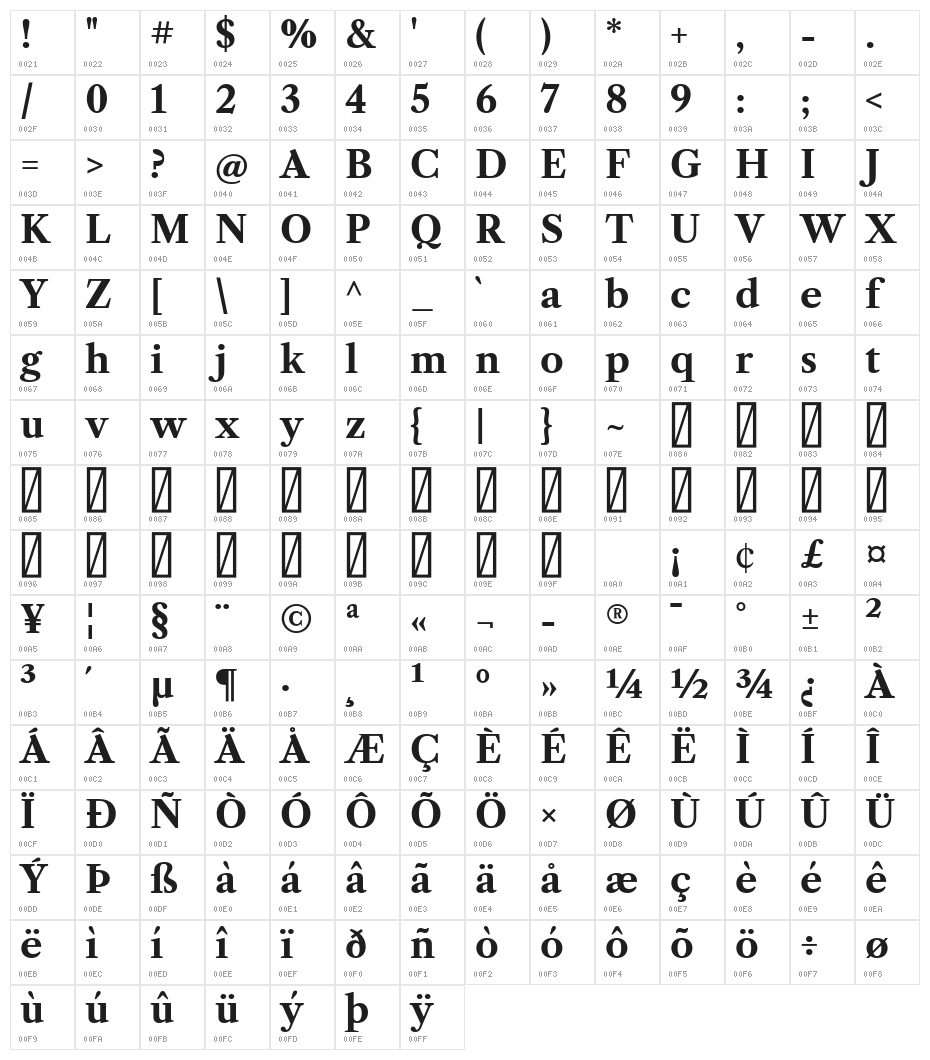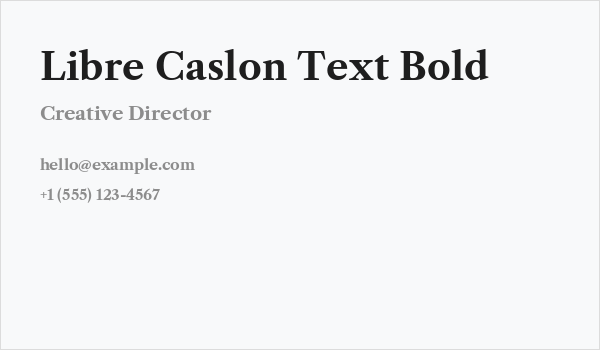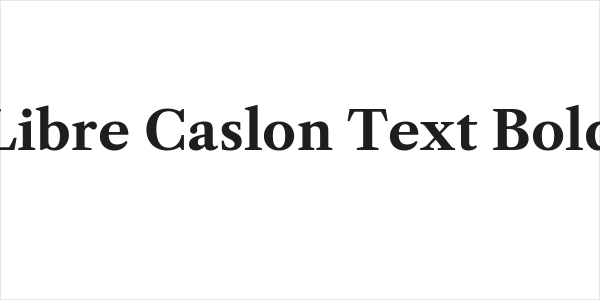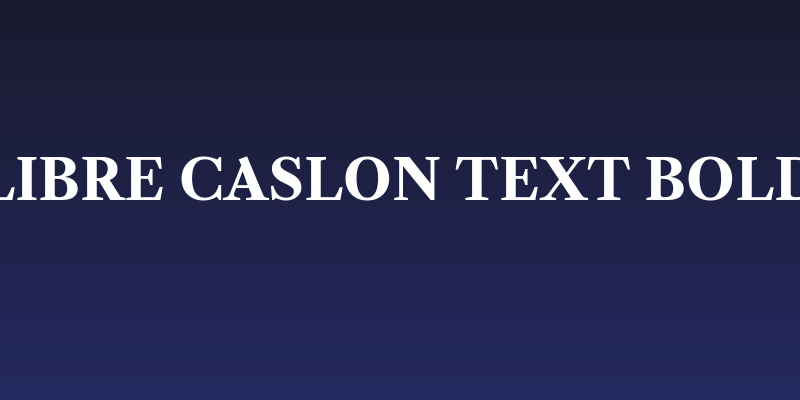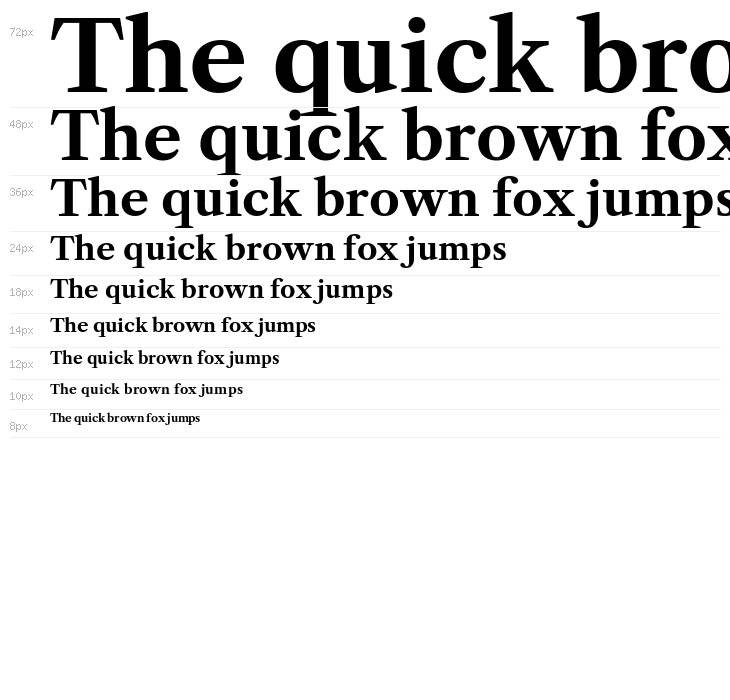
Libre Caslon Text Bold Font
Libre Caslon Text Bold Description
This font exhibits a classic serif style with strong, bold strokes that convey a sense of tradition and reliability. The serifs are pronounced, adding a touch of elegance and readability, making it suitable for both print and digital media. The uppercase letters are well-proportioned, while the lowercase letters maintain a consistent x-height, ensuring clarity and legibility. The numerals are robust and align well with the overall design, enhancing the font's versatility. Special characters are distinct and harmonize with the alphabetic characters, providing a comprehensive set for various typographic needs.
| Proposed Projects | Ideal for book covers, editorial design, formal invitations, and branding materials. |